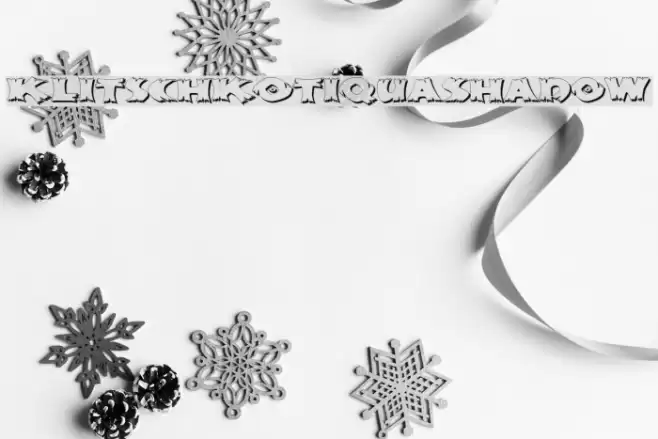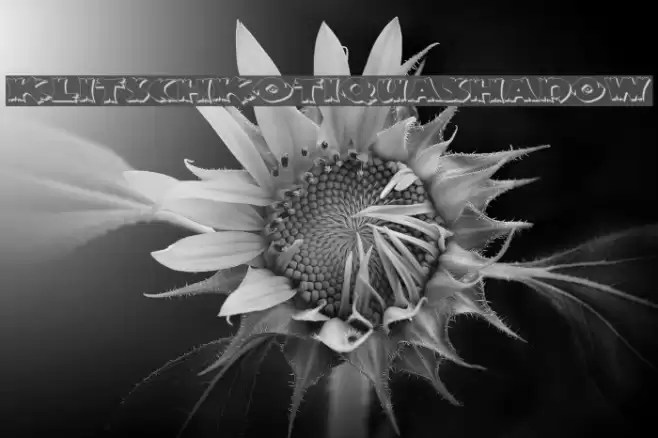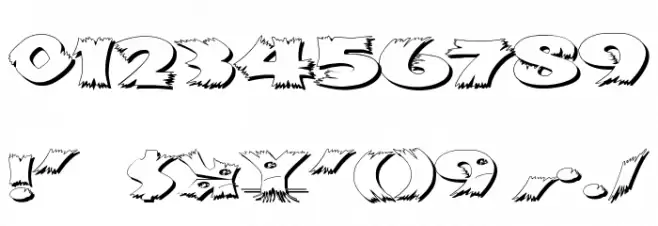
KlitschKOtiquaShadow Font
KlitschKOtiquaShadow Description
This font features a bold and dynamic design with a shadow effect that gives it a three-dimensional appearance. The characters are stylized with jagged edges and irregular outlines, creating a sense of movement and energy. The uppercase and lowercase letters maintain a consistent style, with the numbers and special characters following suit. The font's unique design makes it stand out, making it ideal for projects that require a bold and eye-catching typeface.
A bold, dynamic font with jagged edges and a shadow effect from Uncategorized fonts.
- Proposed Projects: Ideal for posters, video game titles, comic book covers, and any project needing a bold, energetic typeface.
- Overall Style: Modern, Decorative